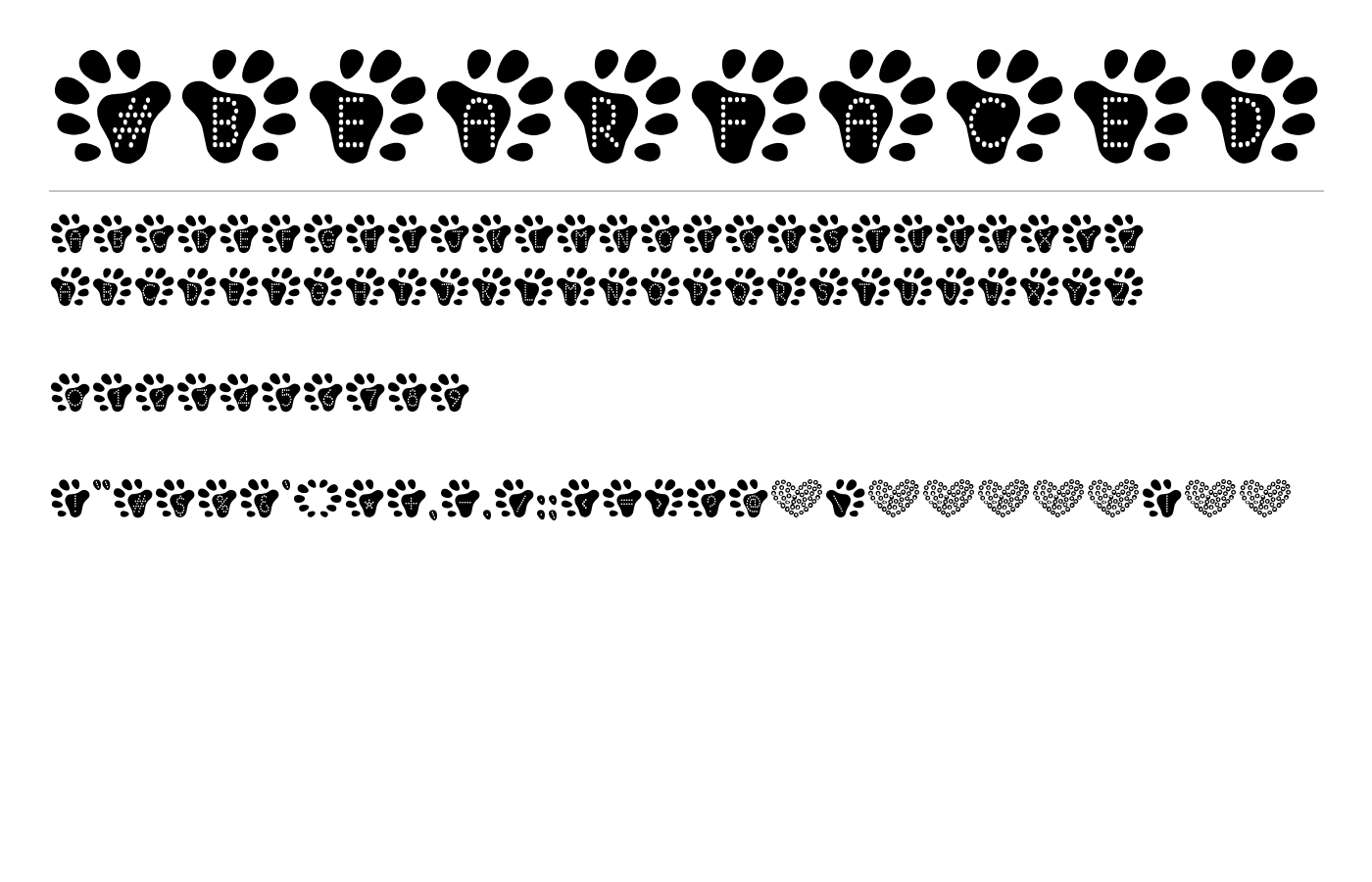
The #bearfaced font is a whimsical decorative typeface featuring bold, paw-shaped letterforms filled with dotted patterns that create the characters. Its playful and chunky design makes it ideal for fun, informal projects such as children’s branding, playful logos, or event posters where a cute, friendly vibe is desired. This font works best in large sizes for display uses rather than body text, adding a unique, eye-catching touch to creative designs.
#bearfaced Font
About #bearfaced Font
| Font family | #bearfaced Font |
| Designer | SpideRaY |